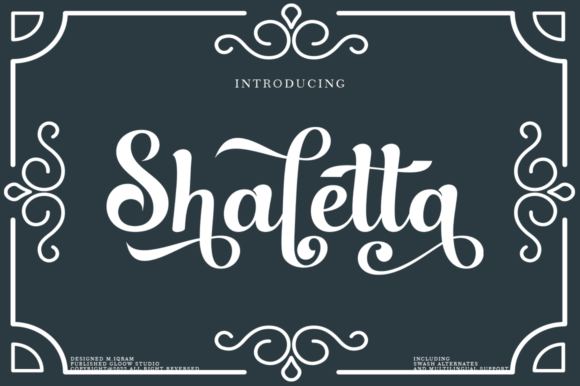
Introducing Shaletta Font, a mesmerizing script font that exudes elegance and charm. Inspired by the beauty of classic calligraphy, Shaletta possesses an authentic and captivating allure that will elevate your designs to new heights.
Crafted with meticulous attention to detail, Shaletta's graceful curves and delicate flourishes will add a touch of sophistication and timeless style to any project. Whether you're designing posters, invitations, branding materials, or social media posts, Shaletta's versatile nature makes it the perfect choice.
With Shaletta, you'll have complete creative control. The font's PUA encoding allows for easy access to a wide range of glyphs and swashes, giving you the power to create truly unique and eye-catching designs. Unleash your imagination and let Shaletta's charm work its magic.
Imagine the impact Shaletta will make on your fashion website. Its elegant curves will perfectly complement your products, evoking a sense of luxury and exclusivity. Your customers will be captivated by the stunning visuals, encouraging them to engage with your brand and make a purchase.
Shaletta isn't just a font; it's a creative companion that will inspire you to think outside the box. Its versatility knows no bounds, as it seamlessly adapts to a variety of design styles and themes. From vintage-inspired logos to modern and minimalist layouts, Shaletta will elevate your work to new heights.
Unlock the power of Shaletta today and transform your designs into masterpieces. Experience the beauty of classic calligraphy and embark on a creative journey that will leave a lasting impression.